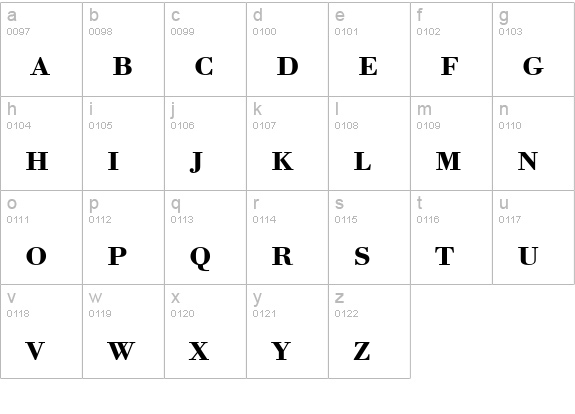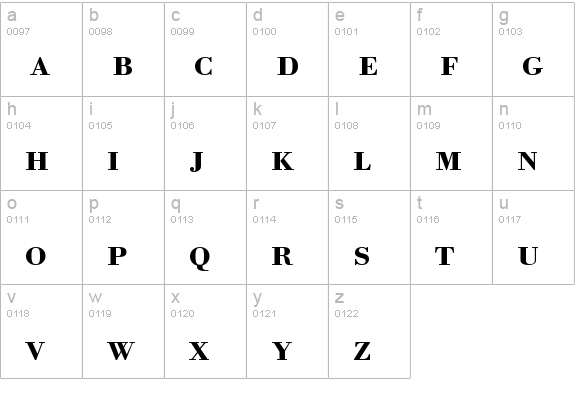
Bodoni BE Medium Small Caps & Oldstyle Figures Font Details
Bodoni BE Medium Small Caps & Oldstyle Figures is a balanced, medium-weight variant in the Bodoni typeface family \xE2\x80\x94 well suited to sub-headlines, navigation, and balanced editorial work.
Bodoni BE Medium Small Caps & Oldstyle Figures font exudes elegance and sophistication with its sleek design and classic appeal. This versatile typeface strikes the perfect balance between modernity and tradition, making it ideal for a wide range of design projects. Featuring small caps and oldstyle figures, Bodoni BE Medium adds a touch of refinement to any text. The clean lines and distinctive serifs give this font a timeless quality that will elevate your typography to new heights. Best of all, this exquisite font is available for free download at FontsMarket.com. Whether you're working on a branding project, editorial design, or any other creative endeavor, Bodoni BE Medium Small Caps & Oldstyle Figures font is sure to make a lasting impression. Elevate your designs with this exquisite typeface today!